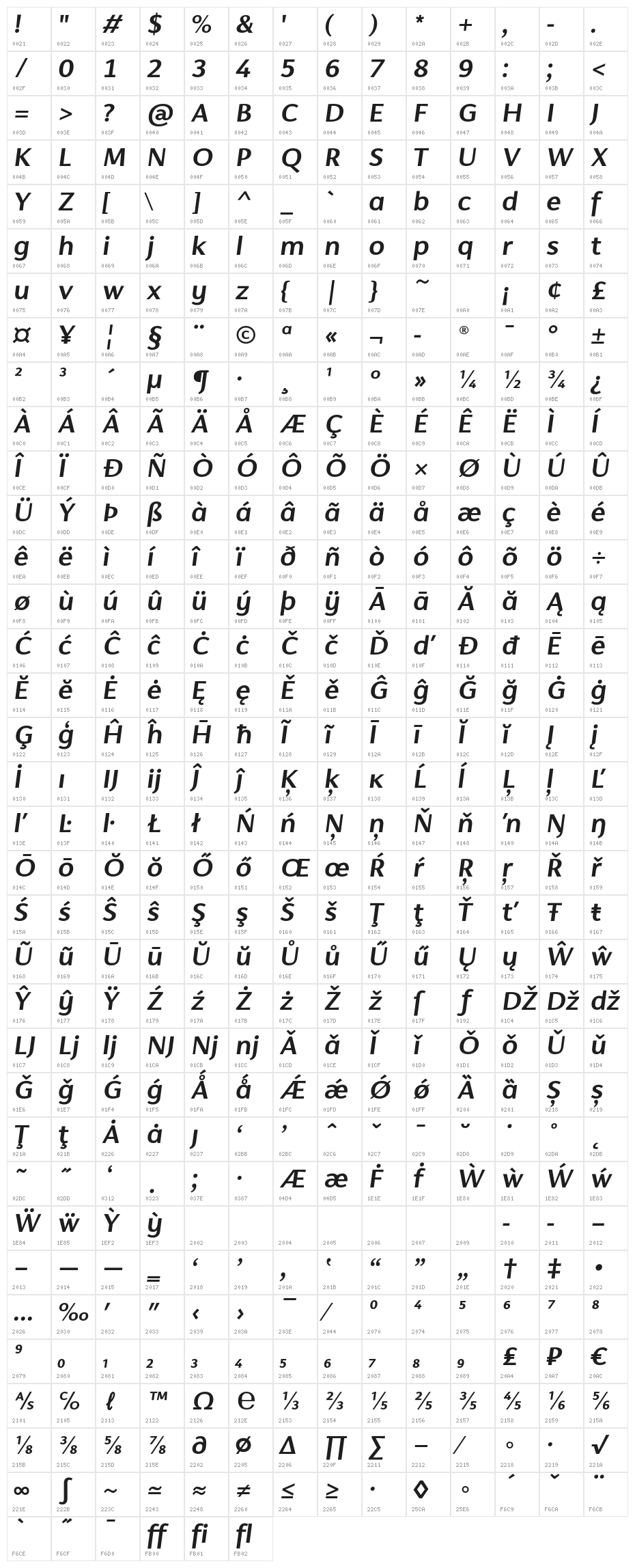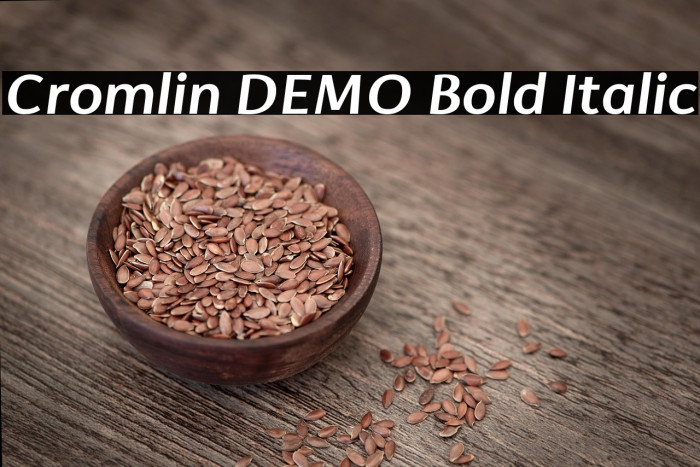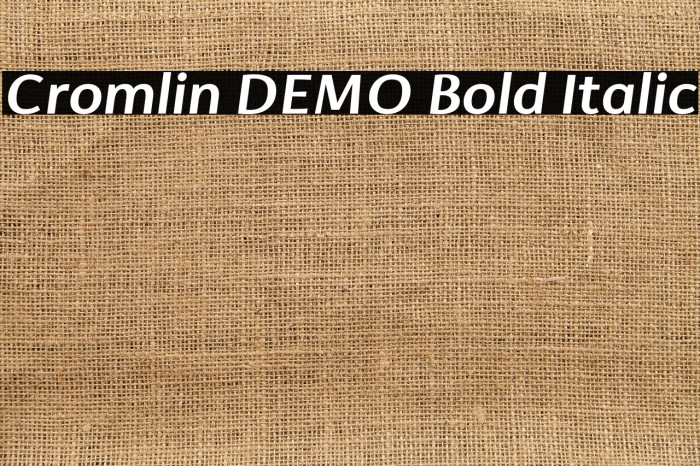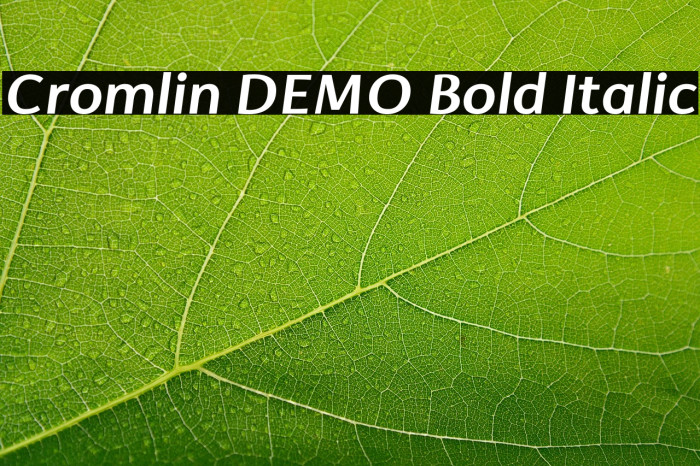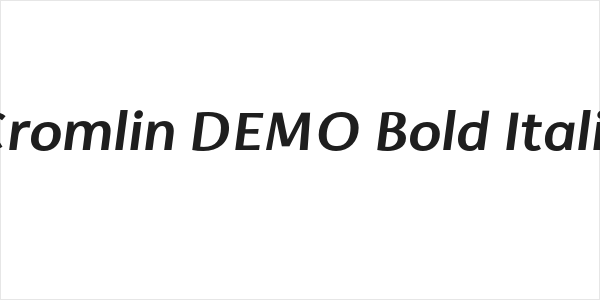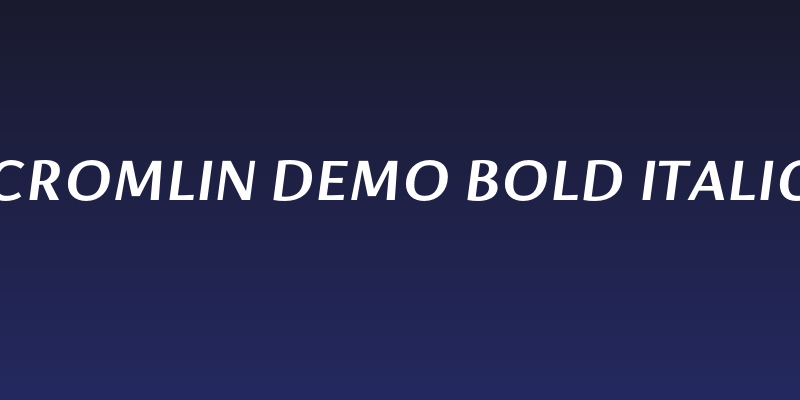
Cromlin DEMO Bold Italic Font
Cromlin DEMO Bold Italic Description
This font features a bold and italic style, combining strength with elegance. The letters are slightly slanted, giving a dynamic and forward-moving appearance. The strokes are consistent and smooth, with a moderate thickness that enhances readability while maintaining a stylish look. The uppercase and lowercase letters are well-proportioned, and the numerals are clear and distinct. Special characters are included, adding versatility for various uses. The overall design is modern and professional, suitable for a wide range of applications.